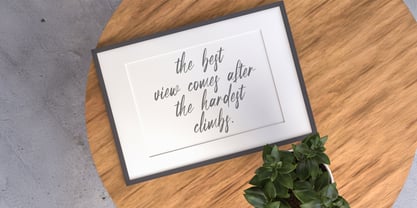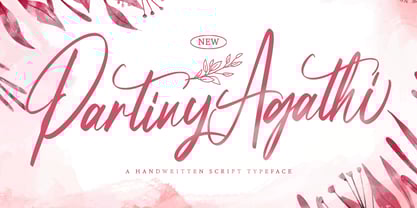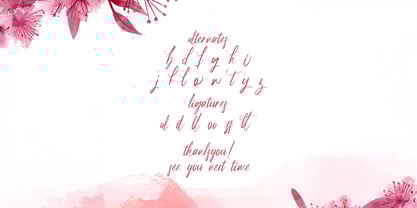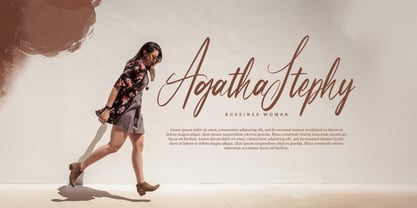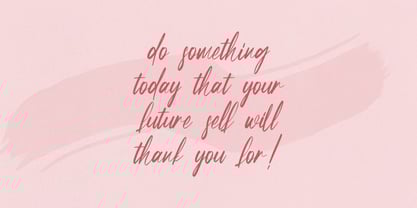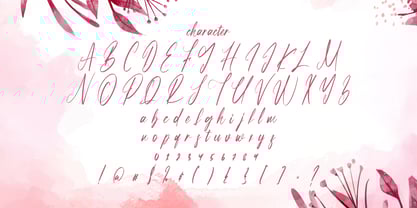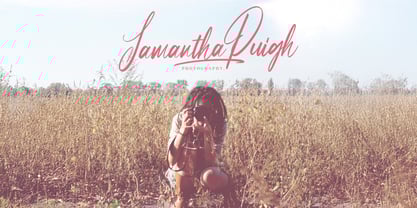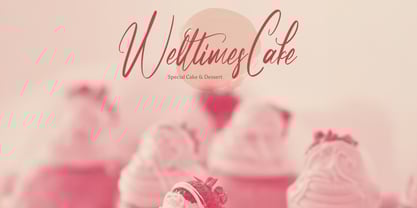
Partiny Agathi
by Stringlabs Creative Studio
The Partiny Agathi Font Family was designed by Virgiawan Listanto and published by Stringlabs Creative Studio. Partiny Agathi contains 1 styles.
Partiny Agathi is a graceful handwritten font that blends elegance with a personal touch. With its smooth curves and flowing lines, this font adds sophistication and warmth to any design, making it ideal for projects that need a refined yet natural feel.